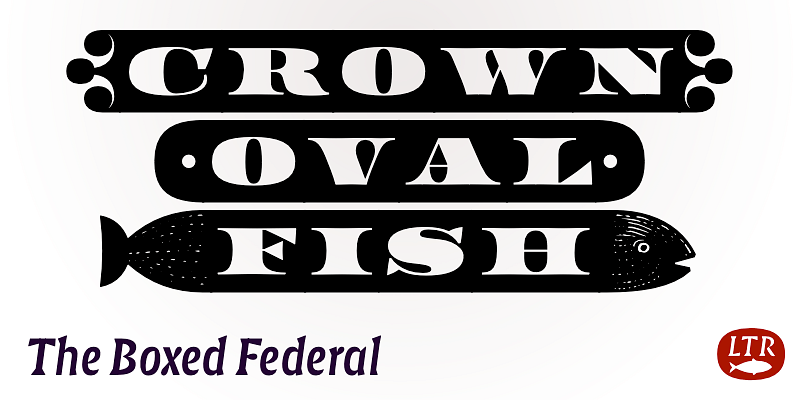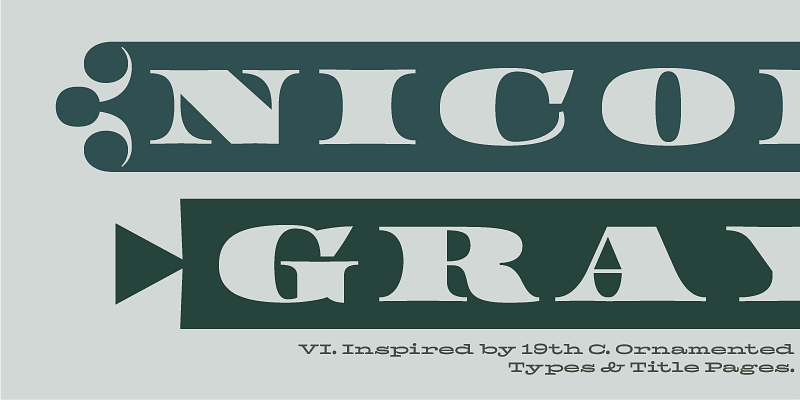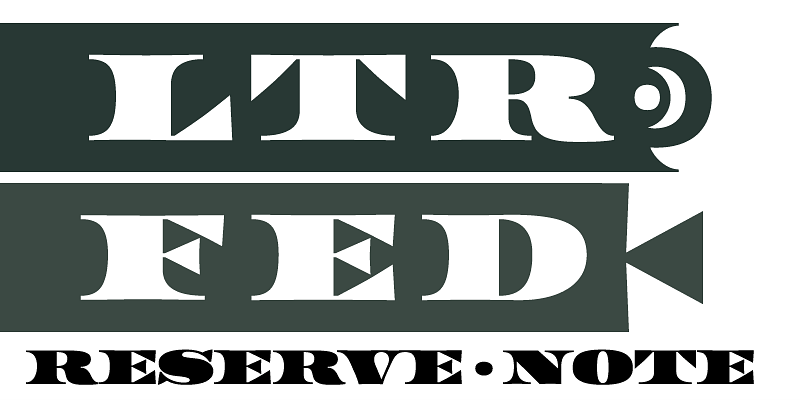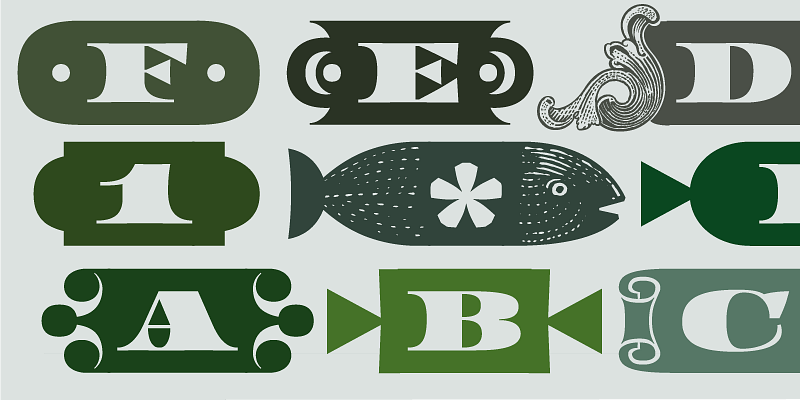
Federal Reserve Note is Federal Regular all wrapped up. Sometimes referred to as cameo or streamer, the boxed-in letterforms create eye-catching ribbons of text. Raise interest further with ten different end pieces: Crown, Toffee, Scroll, Oval, Engraved, Lunate, Crescent, Candy, Fish and Hotdog.